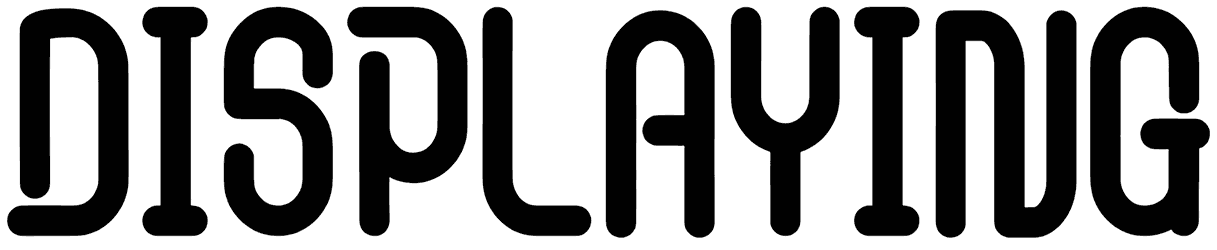
Old Block Font
If you would like a sans-serif font that has a classic design, you will be interested in this Old Block font! The long bold characters are informal, friendly, playful, and have cutting edges! The block style will give your typography a better approach.
Two sets of capital alphabets and numbers are among the letterforms provided, but it doesn’t include lowercase letters and punctuation. You can carry out this font in places such as books, texts, brands, logos, and banners.